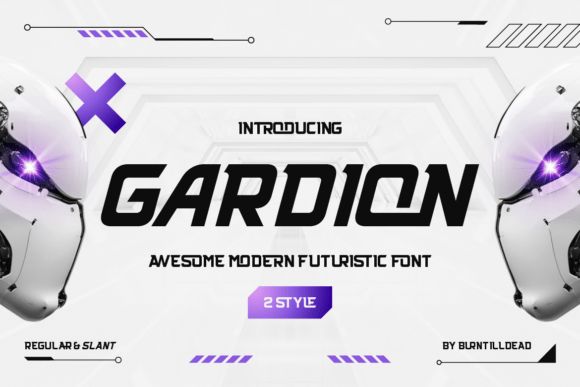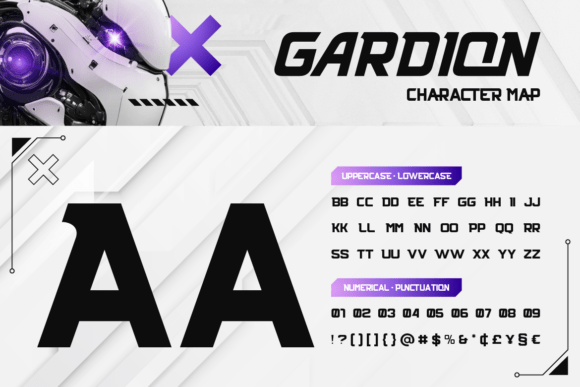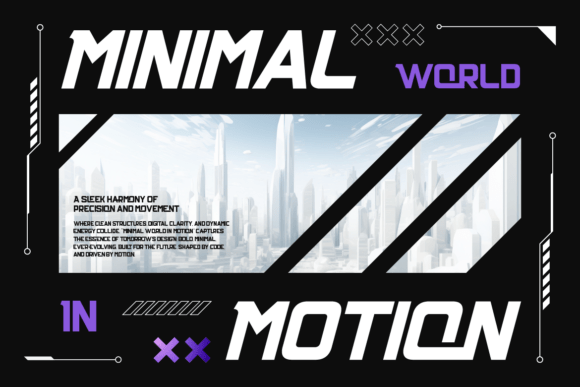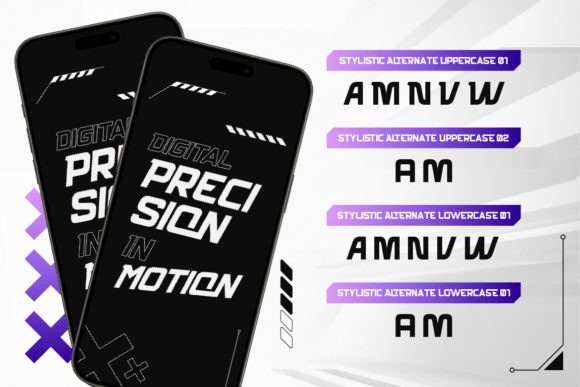
Gardion Font: A Cutting-Edge Modern Font for Tech Logos & Futuristic Design
About the Gardion Font
Meet Gardion Font, a stunning font that brings a touch of elegance and professionalism to any design. Introducing Gardion, an awesome futuristic font designed to bring a cutting-edge vibe. With its sharp geometric shapes and modern aesthetics.
The regular style looks strong and steady, making it look futuristic presence. Slant is dynamic and fast-paced, ideal for energetic and action-driven design. Gardion is carefully crafted to eye eye-catching and highly readable, making it a good choice for technology branding, gaming & esports logos, futuristic UI/UX, space theme, sci-fi posters, automotive design, and more.
Gardion Font Example